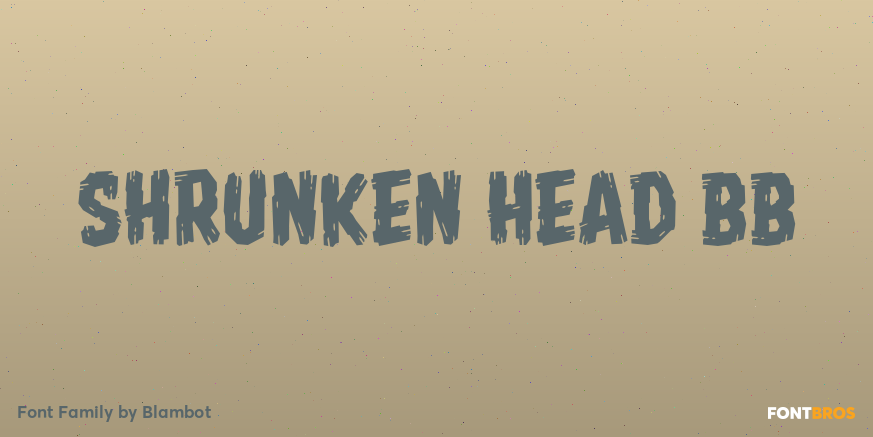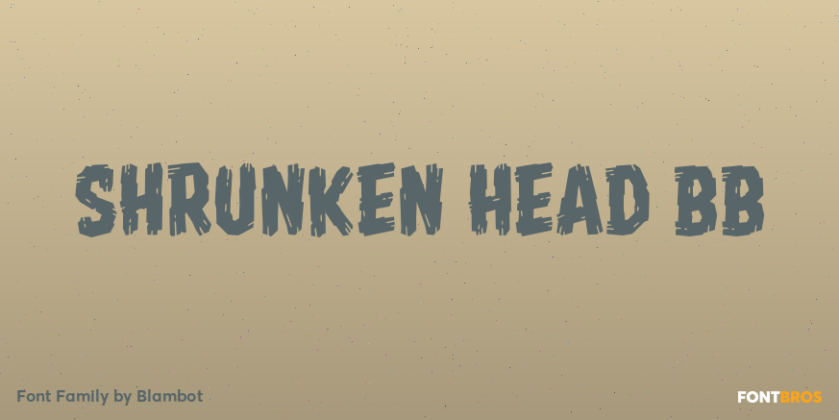
Shrunken head is a classic, distressed comic book title font. The family consists of regular, italic, light, and light italic. Comprehensive European characters are included.